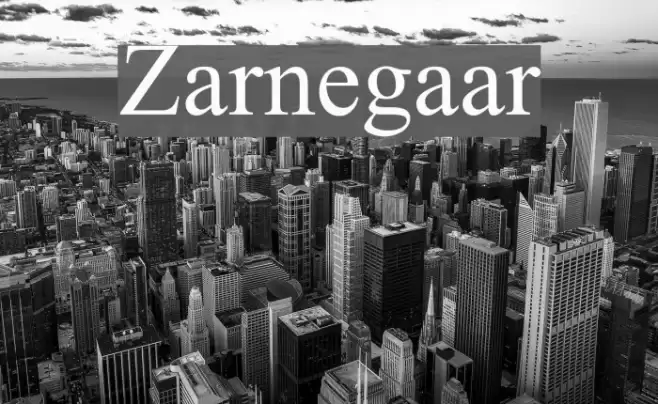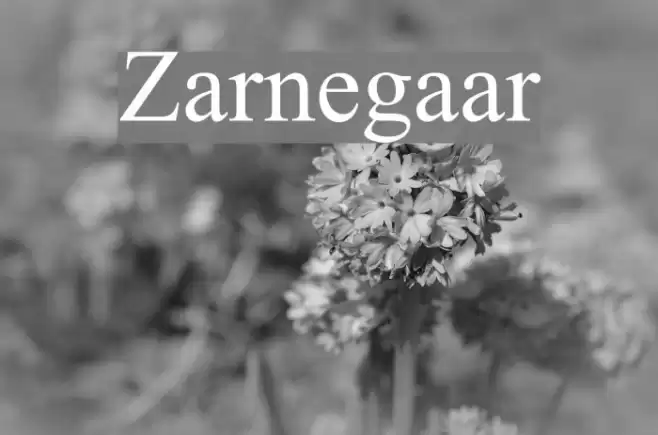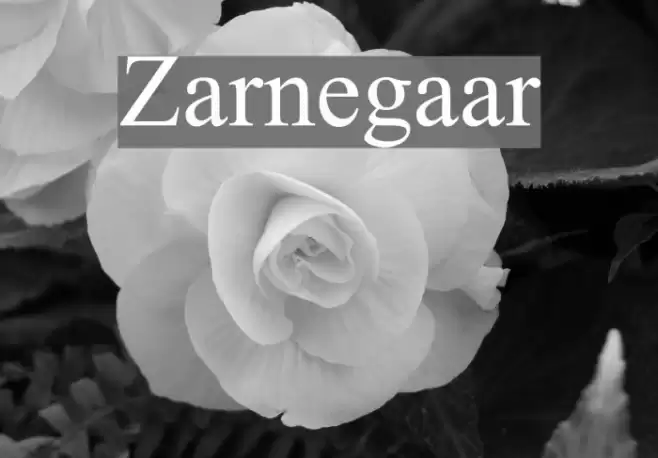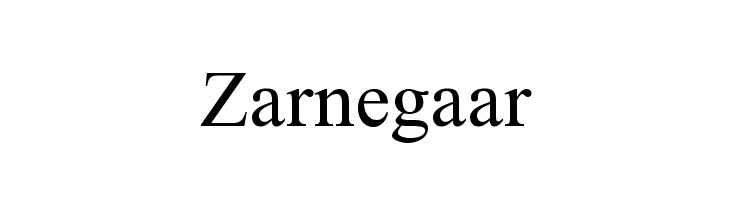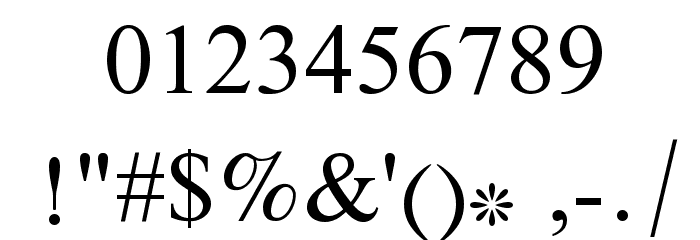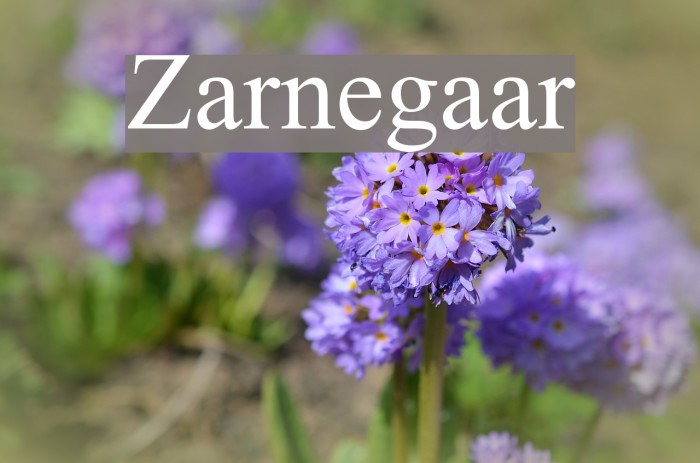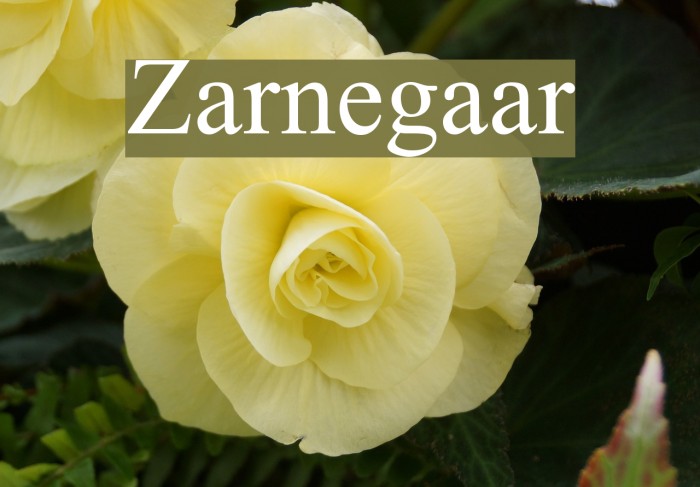
Zarnegaar Font
Zarnegaar Description
This font features a classic serif style with elegant and refined strokes. The uppercase letters are bold and commanding, while the lowercase letters maintain a consistent and harmonious flow. The numerals are clear and well-proportioned, making them easy to read. Special characters are designed with the same attention to detail, ensuring a cohesive look across all elements. The overall appearance is sophisticated, making it suitable for formal and professional applications. The serifs are pronounced, adding a touch of tradition and authority to the text.
A classic serif font with elegant strokes and refined details from Uncategorized fonts.
- Proposed Projects: Ideal for use in editorial design, book covers, formal invitations, and corporate branding.
- Overall Style: Classic